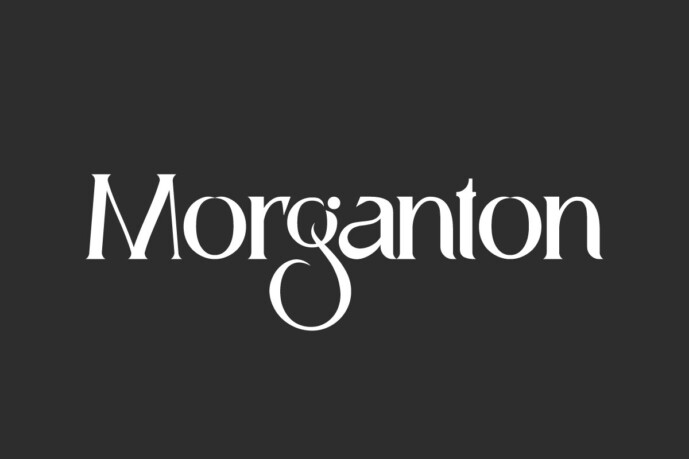
Morganton Font
Morganton Font is a fancy exclusive serif display font in elegant style. This font has strong characters with a beautiful shape to give an elegant looks. It will suits many designs, such as billboard, body text, cover, custom design, gift box, invitation, label, product packaging, quote, screen printing, signage, stationery, title, website, and more!